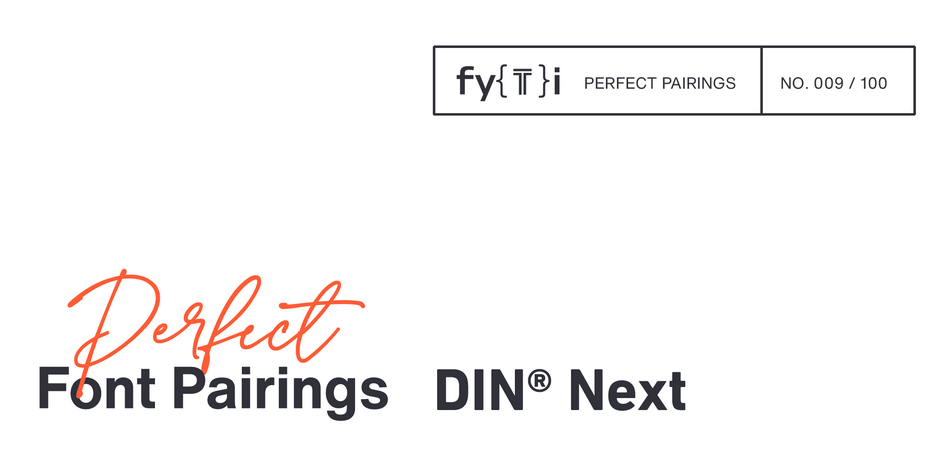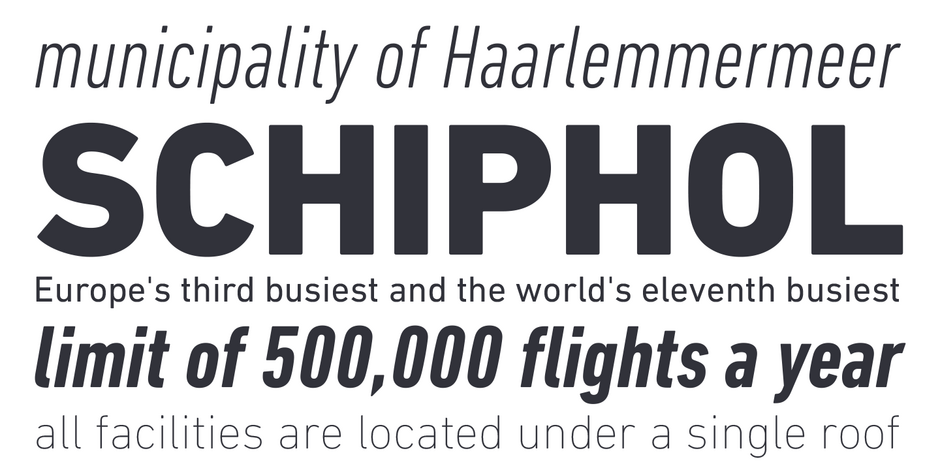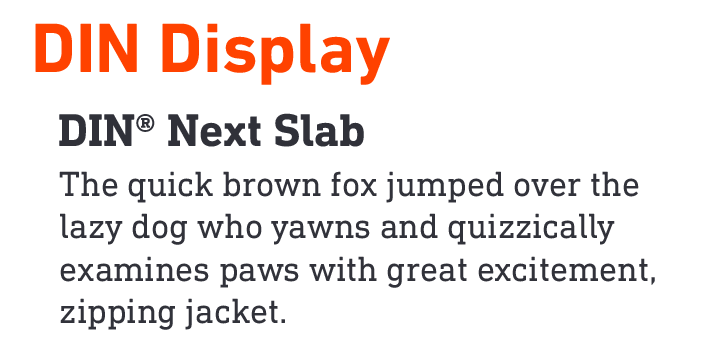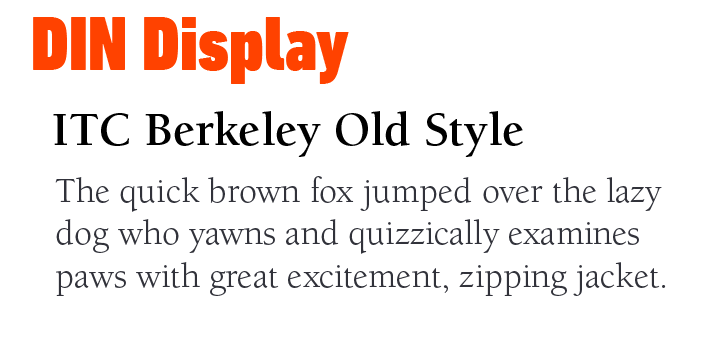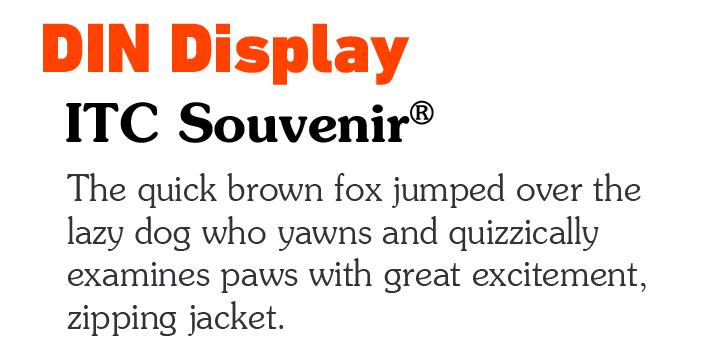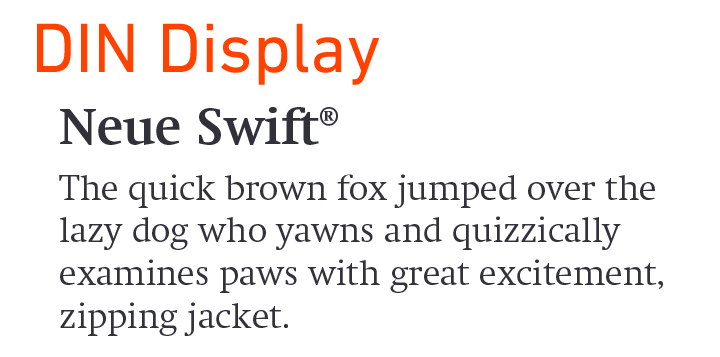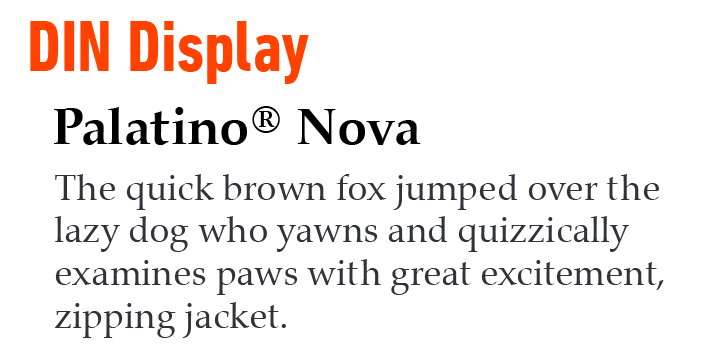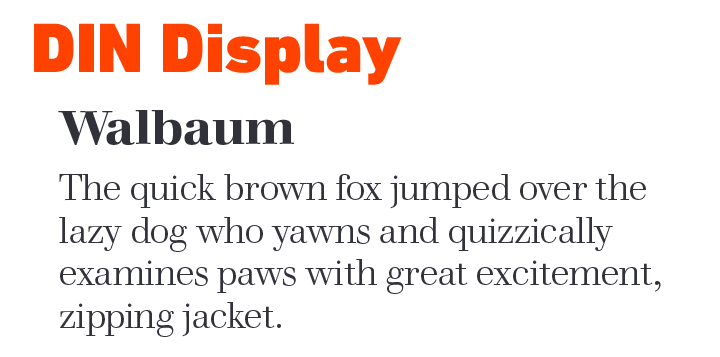
DIN® Next Perfect Font Pairings
FOUNDRY: FF DIN® by FontFont and DIN® Next by Monotype
DESIGNER: Akira Kobayashi, Albert-Jan Pool, and Sandra Winter
CLASSIFICATION: Square Sans
ABOUT THE FAMILY:
- Dating back to the late 19th century, DIN (Deutsches Institut für Normung) is the original ‘industrial strength’ sans-serif typeface. Initially created to identify railroad cars, DIN became the standard typeface for highway signage, house numbers, and engineering applications for decades.
- It wasn’t, however until the late 1980s, however, that DIN gained significant popularity among graphic designers.
WHAT TO LOOK FOR IN FONTS THAT PAIR WELL WITH DIN NEXT:
- The DIN typeface design is available from multiple font foundries. Although there are slight variations among the various DIN font families, they share essentially the same design.
- The guidelines are applicable to all versions of the DIN typeface – except the slab serif designs.
- DIN is generally considered a display typeface. Only the light weights, in large sizes, are recommended for blocks of copy.
DIN DISPLAY PAIRING WITH TEXT FONTS: